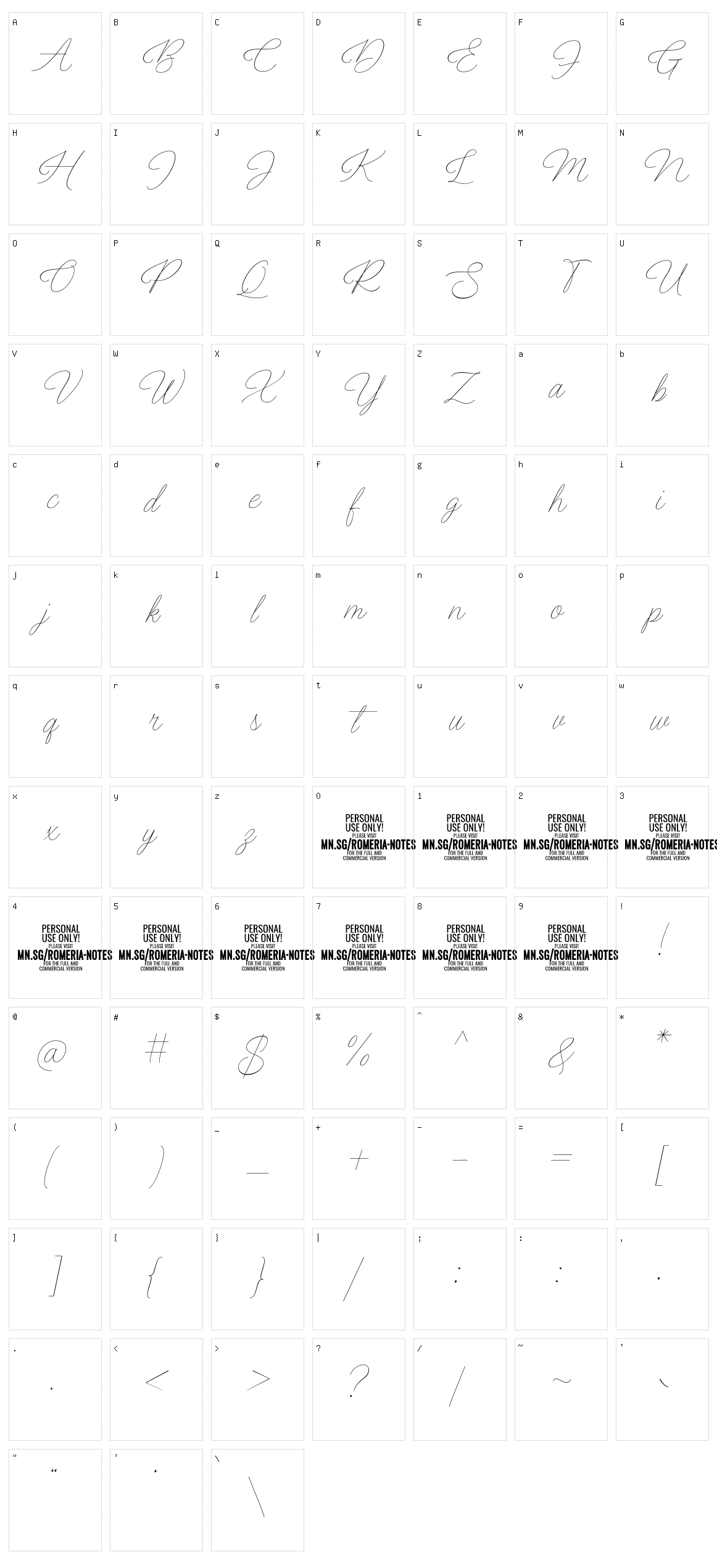
Romeria Notes is a handwritten font that captures the genuine essence of a signature.
This natural script font, with its fluid and seamless strokes, seems as if it's been directly lifted from a personal notebook. Each character is crafted to mirror the effortless elegance found in an artist's autograph, making it a perfect choice for projects that require a touch of personalization.
The cute and charming style of Romeria Notes brings a delightful and engaging feel to the text, while maintaining a beautiful and coherent appearance. The font exudes an organic flow, reminiscent of writing done in a state of inspiration and spontaneity.
The font is built with advanced OpenType functionality and guaranteed top-notch quality, containing stylistic and contextual alternates, ligatures and more automatic and manual features; all to give you full control and customizability. It has extensive lingual support, covering all Latin-based languages, from North Europa to South Africa, from America to South-East Asia. It contains all characters and symbols you'll ever need, including all punctuation and numbers.
Designed by Mans Greback, Romeria Notes stands as a testament to his creative expertise in capturing the essence of handwritten elegance. This font not only communicates messages but also conveys emotions, making it an ideal choice for projects that seek to connect on a more personal level.